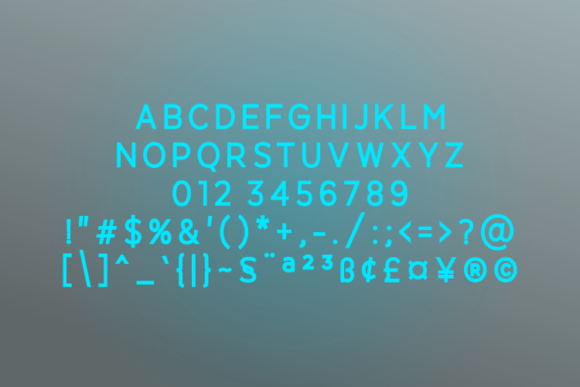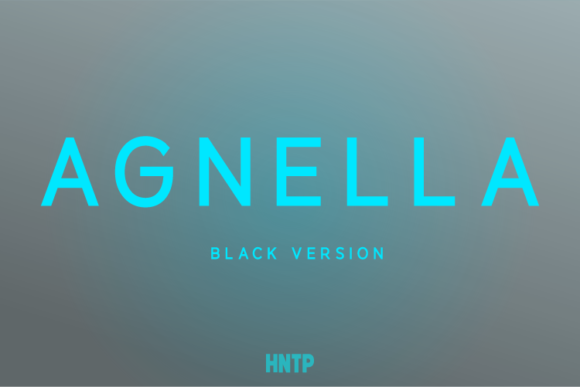
Introduction to Agnella Black Font
Agnella is an effective sans serif with a touch of subtle elegance.
Agnella’s vertically and horizontally cut stems make it appear strong and steady .
Agnella Black Font offers exceptional quality and versatility, making it a valuable addition to your design toolkit. Whether you’re creating for personal projects or commercial use, Agnella Black Font delivers professional results.